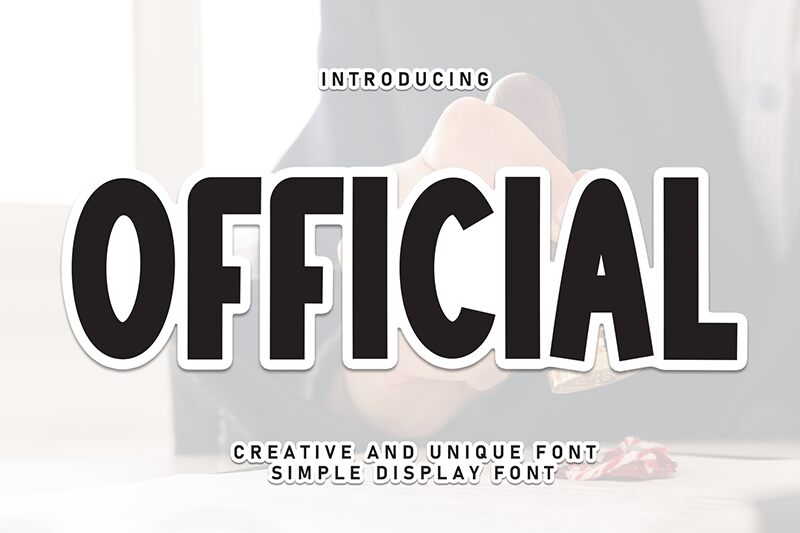
Official
Official font by Scratchones is a free display font that has an outstanding look highlighted by its unique blocky letters and almost barless appearance. These interesting characteristics are rolled in a condensed design with letters that have a clean geometric style and are mostly uniform in terms of size.
The eye-catching clean font is perfect for poster designs, print magazines, flyers, or stationery and branding products. Its authoritative style suits newspapers’ covers and titles perfectly well too! The free font can also be wisely used on backpacks, notebooks, logos, soda cans, business cards etc.